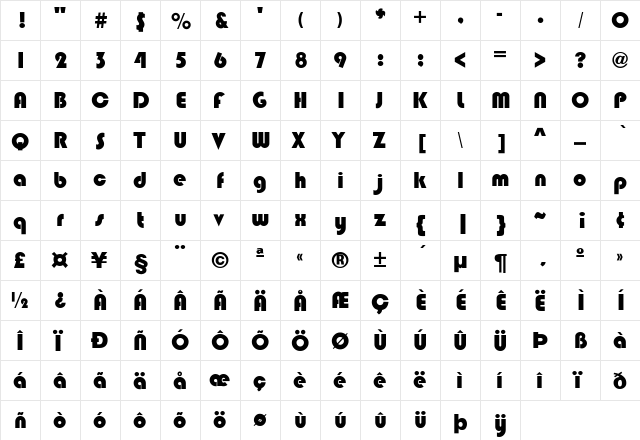
Circle Center Regular Font Preview
Circle Center Regular
Design Context for Circle Center Typeface
Circle Center offers clean, dependable letterforms without strong stylistic allegiance, making it a practical choice for designers who need flexibility.